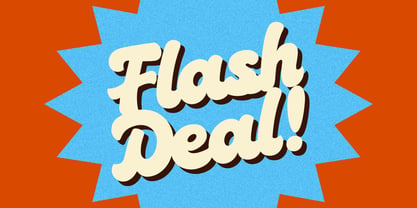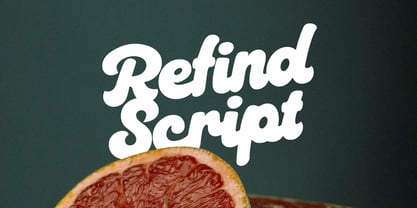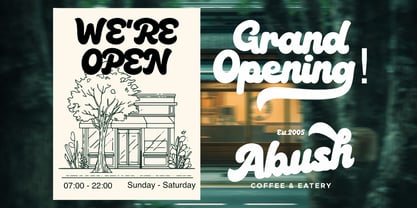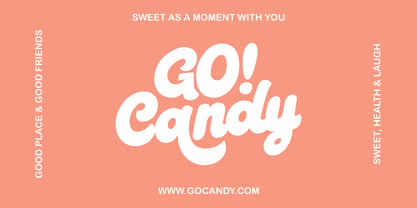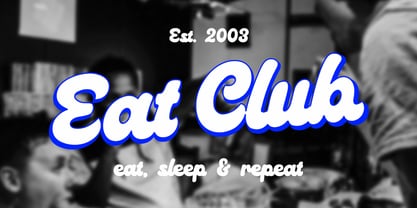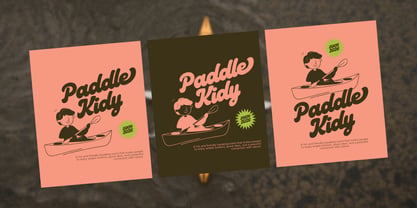
Refind Script
by Modikstype
The Refind Script Font Family was designed by Angga Monad and published by Modikstype. Refind Script contains 1 styles. More about this family
Refind Script is a bold, playful, and retro-inspired script typeface designed to bring warmth, personality, and charm to your designs. With its soft curves, thick strokes, and smooth connections, this font is perfect for creating eye-catching headlines and friendly brand identities. Inspired by vintage signage, food packaging, and cheerful branding, Retind Script works beautifully across a wide range of creative projects—from logos and posters to packaging, social media, and editorial layouts. This typeface delivers a fun yet confident tone, making it ideal for brands that want to feel approachable, joyful, and memorable.
Designers: Angga Monad
Foundry: Modikstype